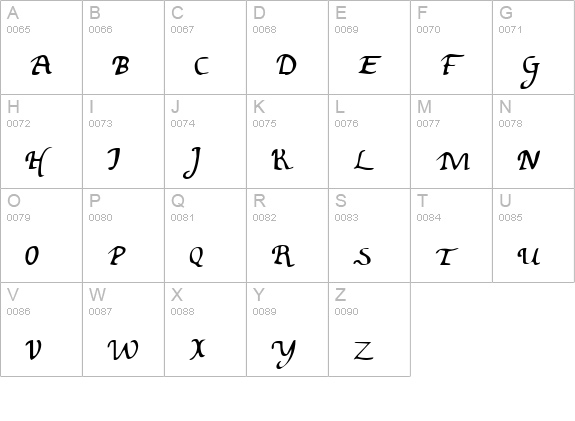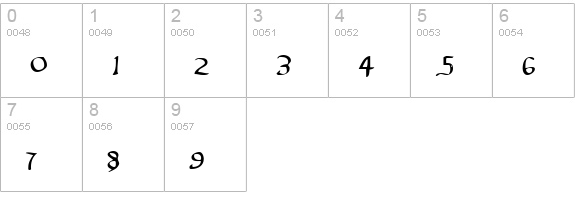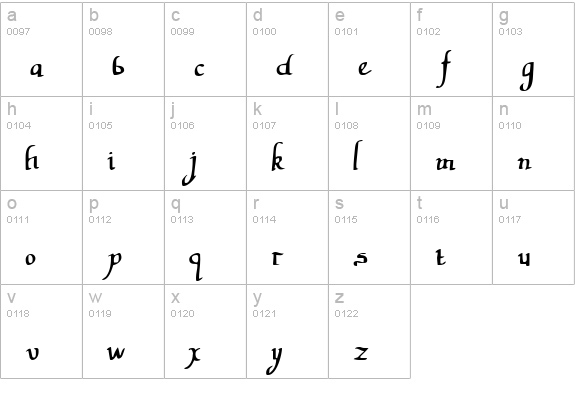
Valley Forge font embodies the perfect blend of elegance and modernity, making it a versatile choice for a wide range of design projects. Its clean lines and sleek curves exude sophistication, while its unique style adds a touch of originality to any text. Whether you're creating a logo, designing a website, or working on a print project, Valley Forge font is sure to make a lasting impression. The best part? Valley Forge font is available for free download at FontsMarket.com, making it easily accessible to designers and creatives looking to enhance their work with a touch of class. So why settle for ordinary fonts when you can elevate your designs with the timeless charm of Valley Forge font? Download it today and discover the endless possibilities it offers for your next project.